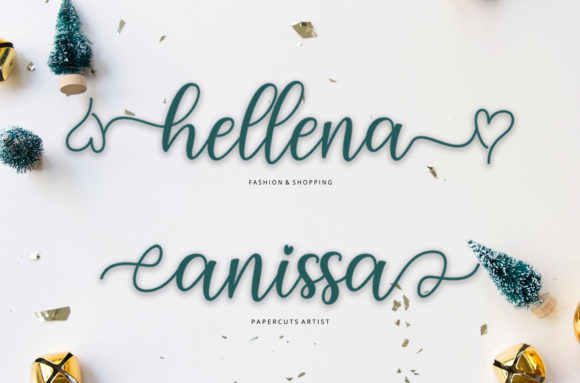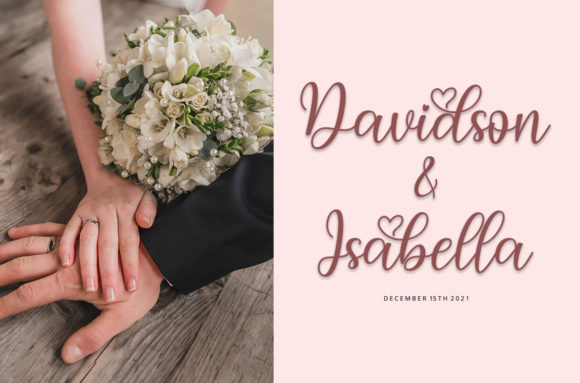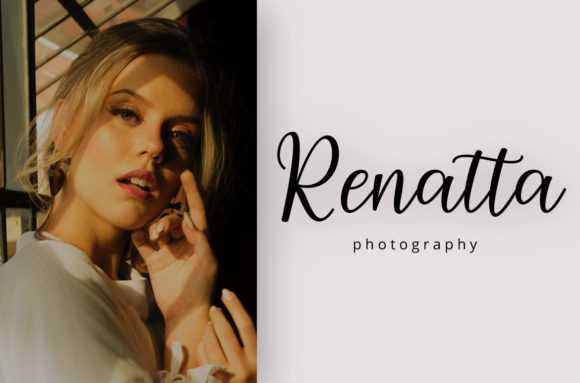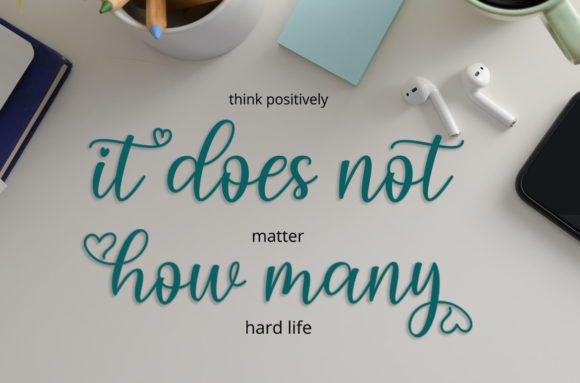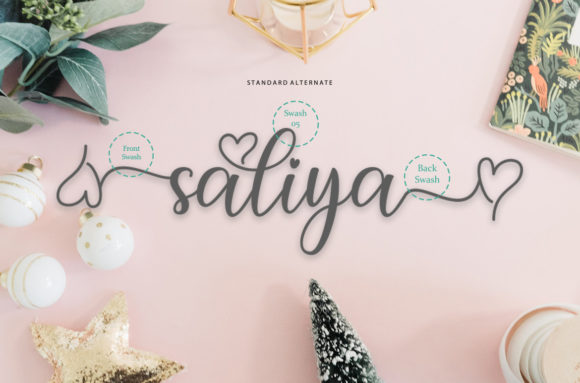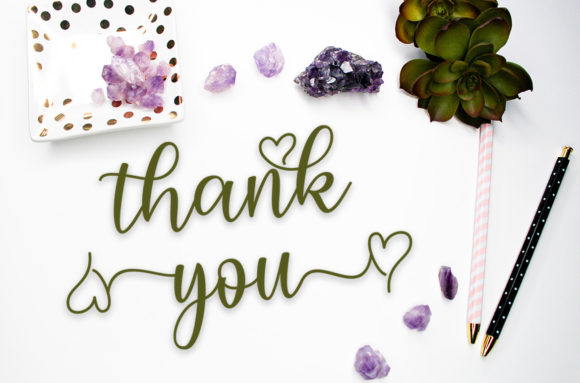
The Perfect Brushstroke: Introducing Baby Lalisa Font
There’s something magical about watching your ideas come to life on paper. You’re brainstorming a new project, and suddenly, the words start flowing – the perfect headline, the elegant title, the captivating text. It’s that moment when you know you’ve found the perfect font to elevate your design. For designers, the quest for the ideal font is a constant one, and we’re excited to introduce a new addition to your toolkit: Baby Lalisa Font.
This elegant script font brings a touch of classic calligraphy to your projects, with a contemporary twist that’s sure to impress. With its balanced and varied lines, Baby Lalisa Font is the perfect choice for designers looking to add a bit of sophistication to their work. Whether you’re creating a wedding invitation, a logo, or a marketing brochure, this font is sure to make your projects shine.
Baby Lalisa Font Key Features
- Font Family: Baby Lalisa is a unique, handwritten font designed to resemble a baby’s handwriting.
- Character Count: The font contains a wide range of characters, including uppercase and lowercase letters, numbers, and punctuation marks.
- Unique Characteristics: Baby Lalisa font features a playful, cursive design with imperfections and irregularities that give it a personal, handwritten feel.
Baby Lalisa Font Review
I’ve had the chance to work with the Baby Lalisa Font, and I must say it’s an interesting addition to any design project. ✨ The font’s playful, cursive style is reminiscent of handwritten text, making it perfect for creating a whimsical or childlike atmosphere in your design.
Some of the font’s strengths include:
- ✨ Unique and eye-catching style
- ✨ Suitable for headings, titles, or short text passages
- ✨ Can add a touch of playfulness to your design
- ⚠️ Readability can be an issue for longer text passages, as the font’s style can become overwhelming
- ⚠️ May not be suitable for formal or professional designs
- ⚠️ Limited character set, which can limit its versatility
Overall, the Baby Lalisa Font is a fun and creative option to have in your design arsenal. While it may not be suitable for every project, it can be a great choice for designs that require a playful, whimsical touch. Just be sure to use it judiciously and consider the potential limitations.
Getting the Most Out of Baby Lalisa Font
To get the most out of the Baby Lalisa font, try the following tips:
- Use the font for titles and headings to add a touch of whimsy to your design.
- Pair the font with other playful fonts for a fun and creative look.
- Experiment with different font sizes and colors to add visual interest.
The Baby Lalisa font is perfect for:
- Children’s book illustrations and designs.
- Party invitations and decorations.
- Fun and playful social media graphics.